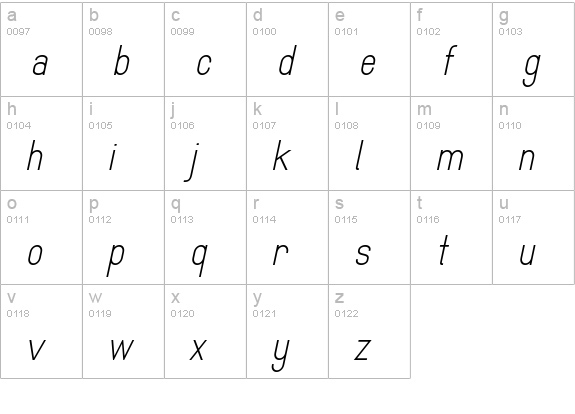
MindBlue Italic is a distinctive, italic variant in the MindBlue typeface family \xE2\x80\x94 well suited to design and typography projects.
MindBlue Italic is a modern and stylish font that is sure to make a statement in any design project. Its sleek and elegant design adds a touch of sophistication to any text, making it perfect for branding materials, logo designs, advertisements, and more. This unique font is characterized by its slanted and italicized letterforms, which lend a sense of movement and dynamism to any text. The carefully crafted curves and sharp angles give MindBlue Italic a contemporary and high-end feel, making it a versatile choice for both digital and print designs. One of the standout features of MindBlue Italic is its versatility. Whether you're looking for a font that conveys professionalism and elegance or one that exudes creativity and innovation, this font has got you covered. Its clean lines and balanced proportions make it incredibly readable, even at smaller sizes, ensuring that your message is always clear and impactful. But what sets MindBlue Italic apart from other fonts is its accessibility. It is freely available to download at FontsMarket.com, making it a fantastic option for designers on a budget or anyone looking to add a touch of sophistication to their projects without breaking the bank. Its free availability also means that you can easily share it with colleagues, clients, or friends, allowing everyone to benefit from its refined and stylish aesthetic. So whether you're designing a website, creating a poster, or crafting a presentation, MindBlue Italic is the perfect font to elevate your project to new heights. With its modern and versatile design, combined with its accessibility and affordability, this font is a must-have for any designer or creative individual. Download MindBlue Italic from FontsMarket.com today and add a touch of elegance and style to your next project.